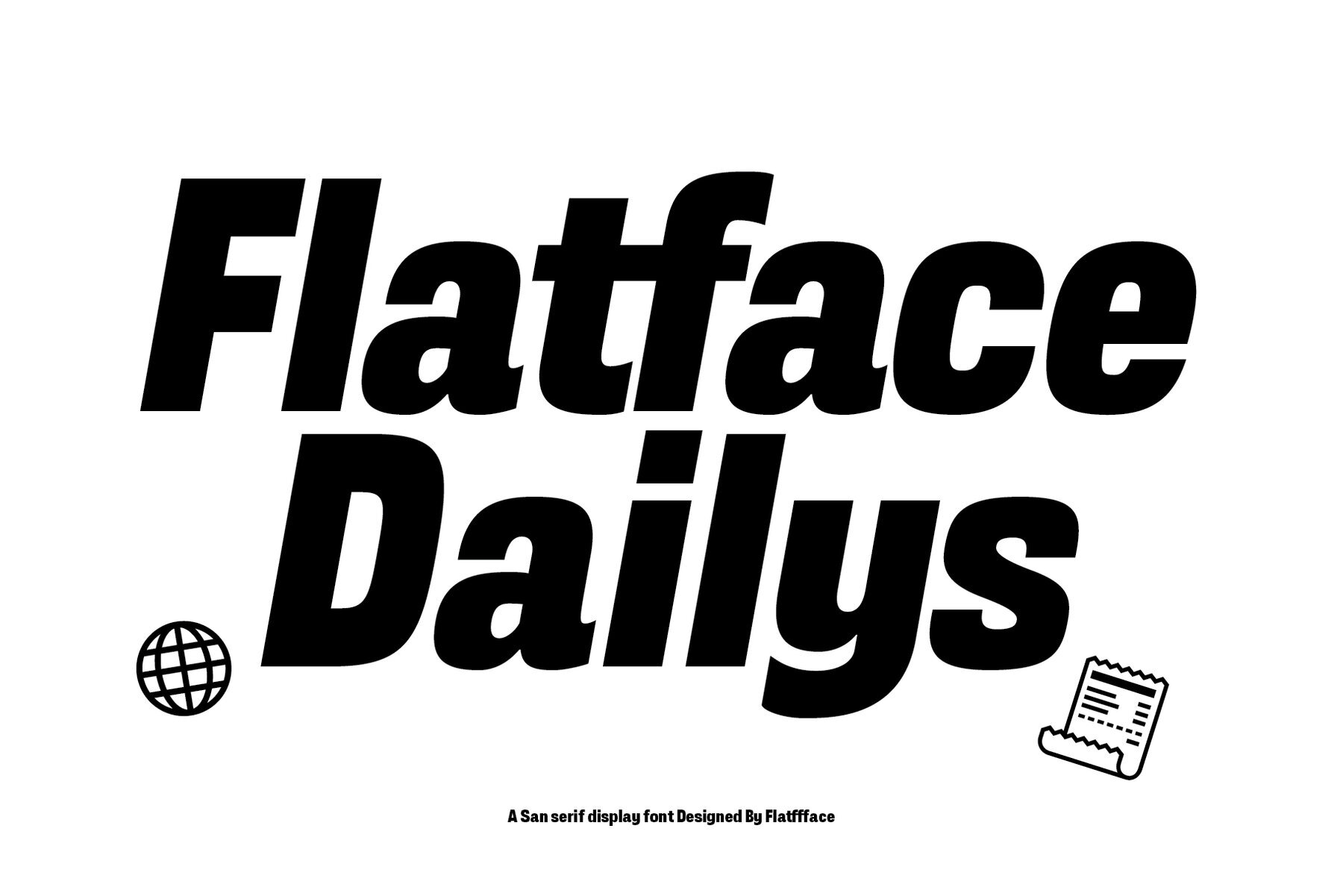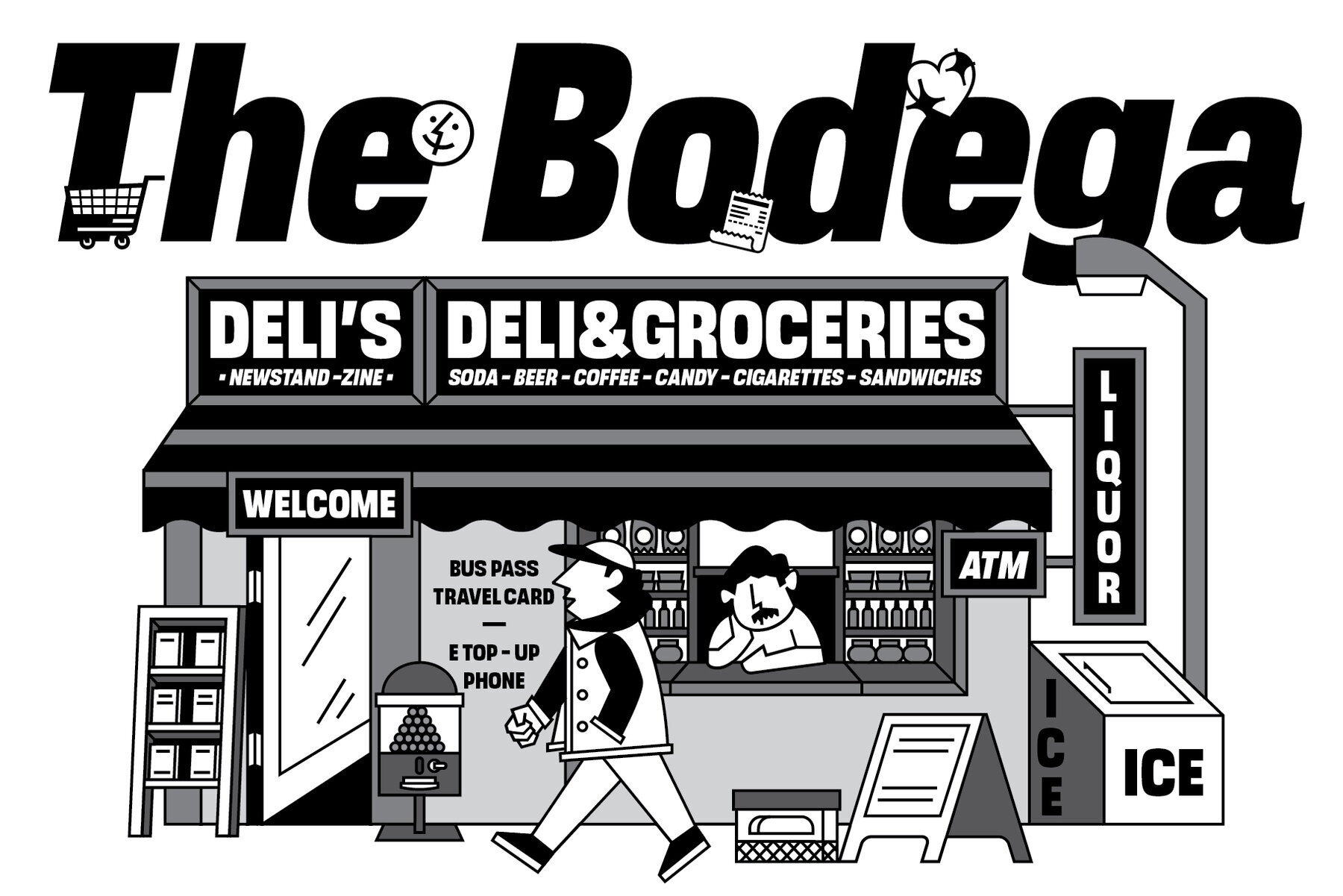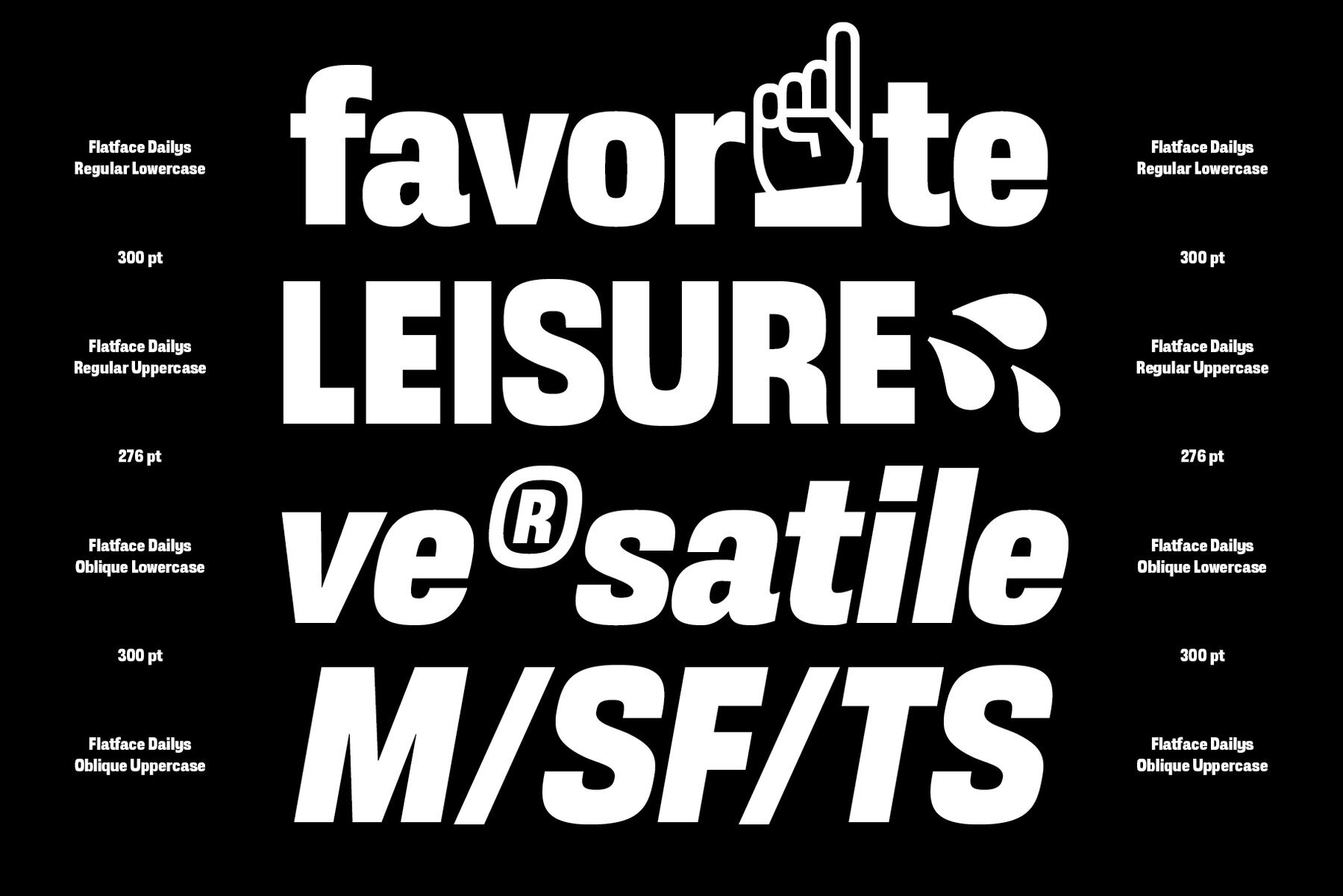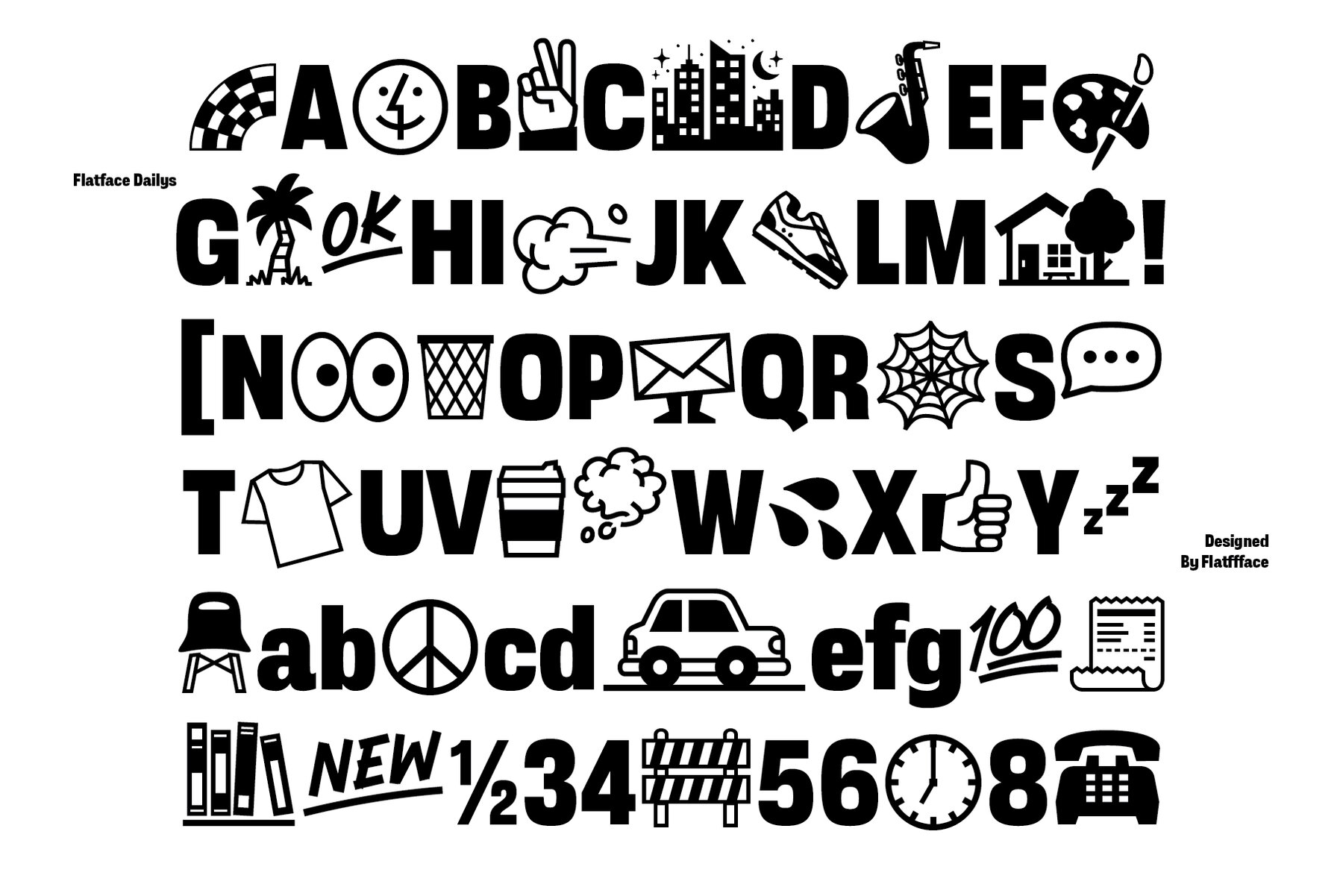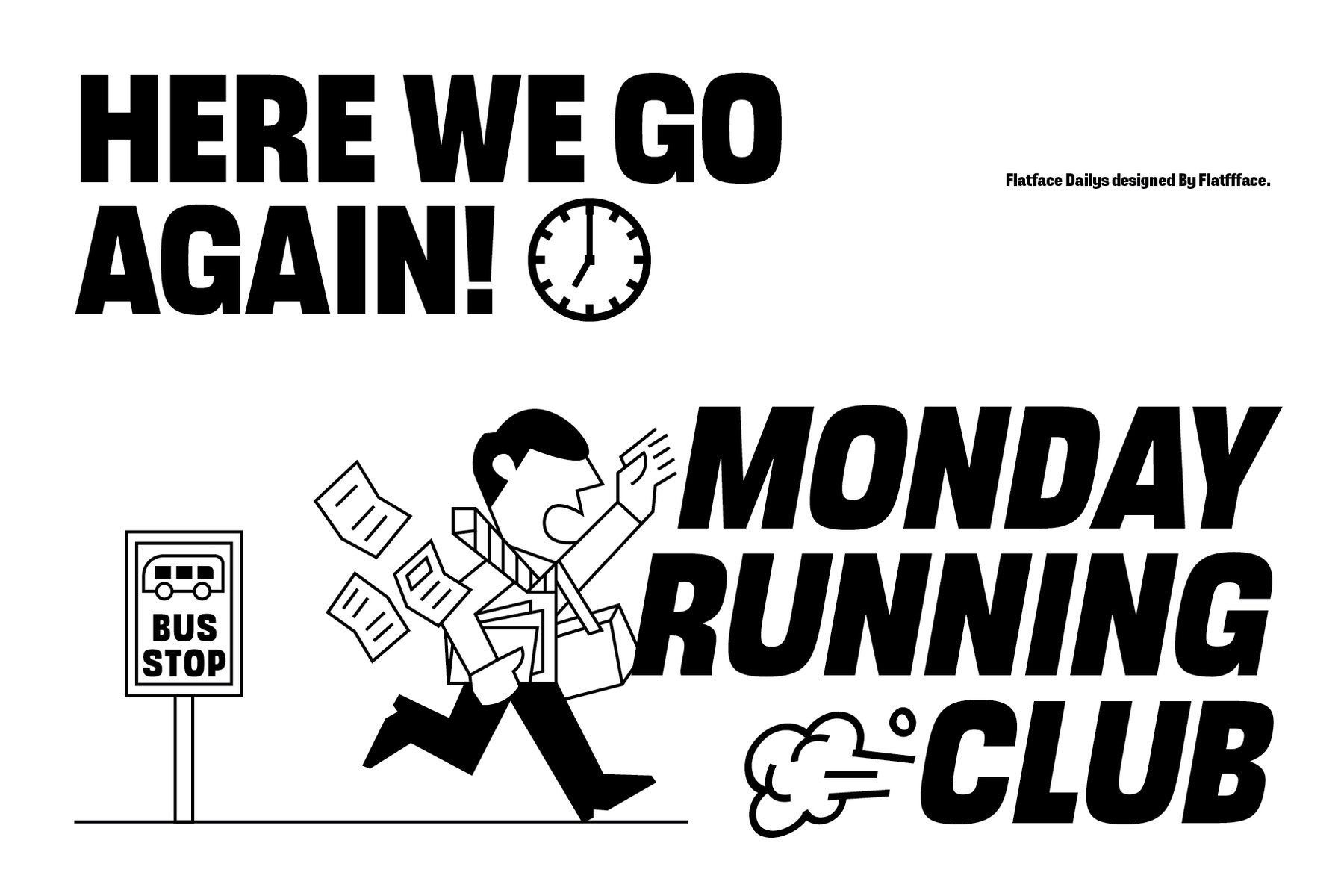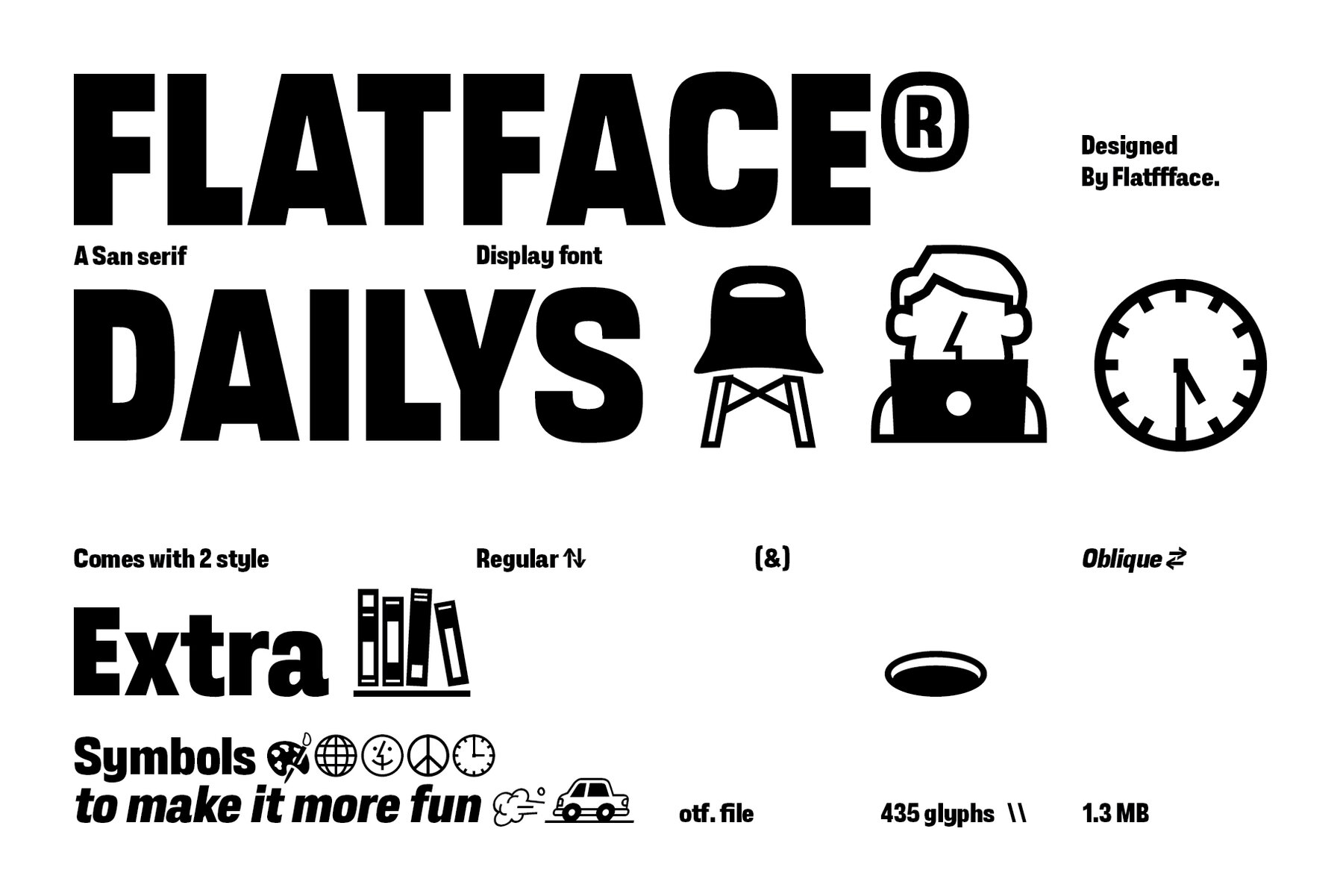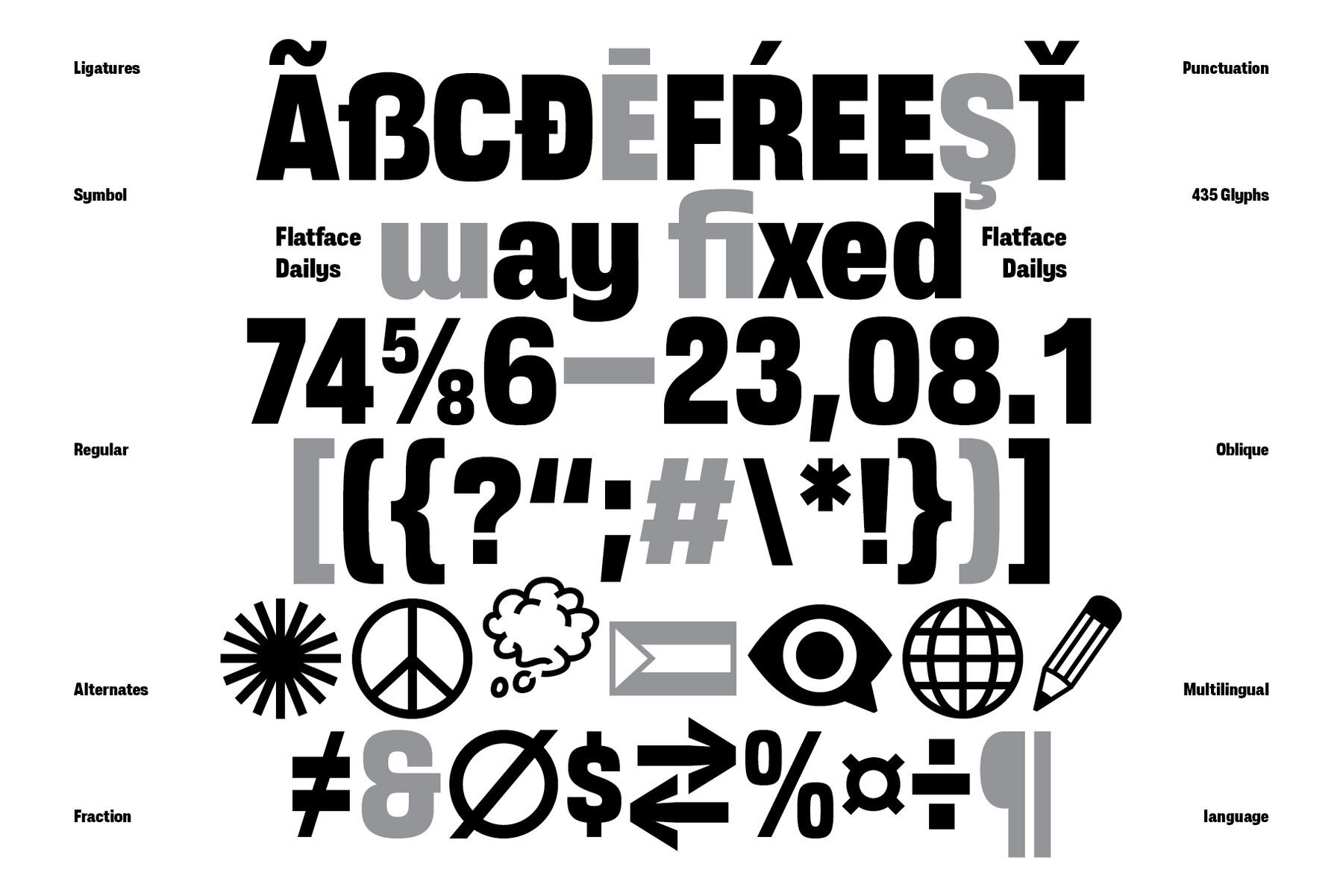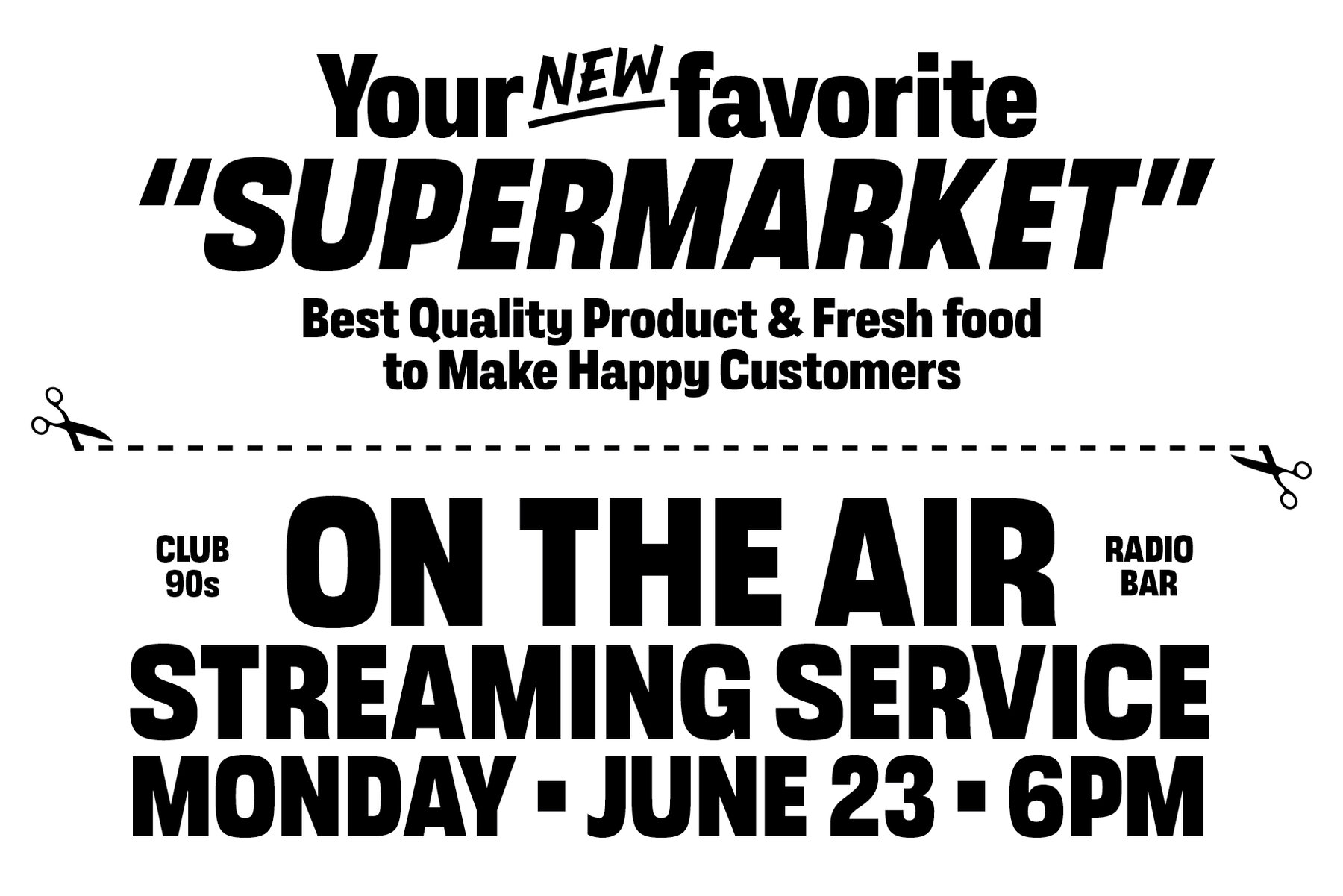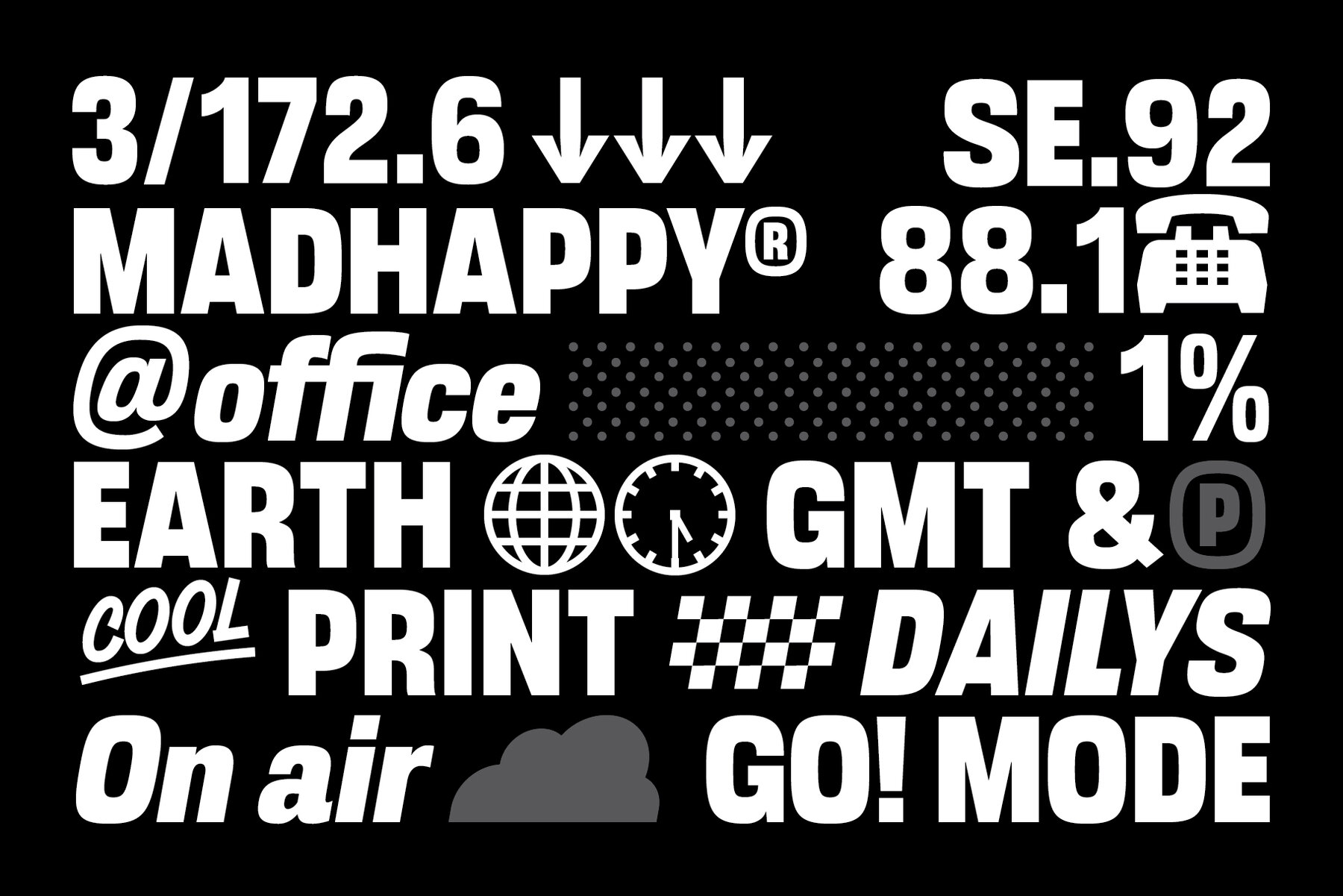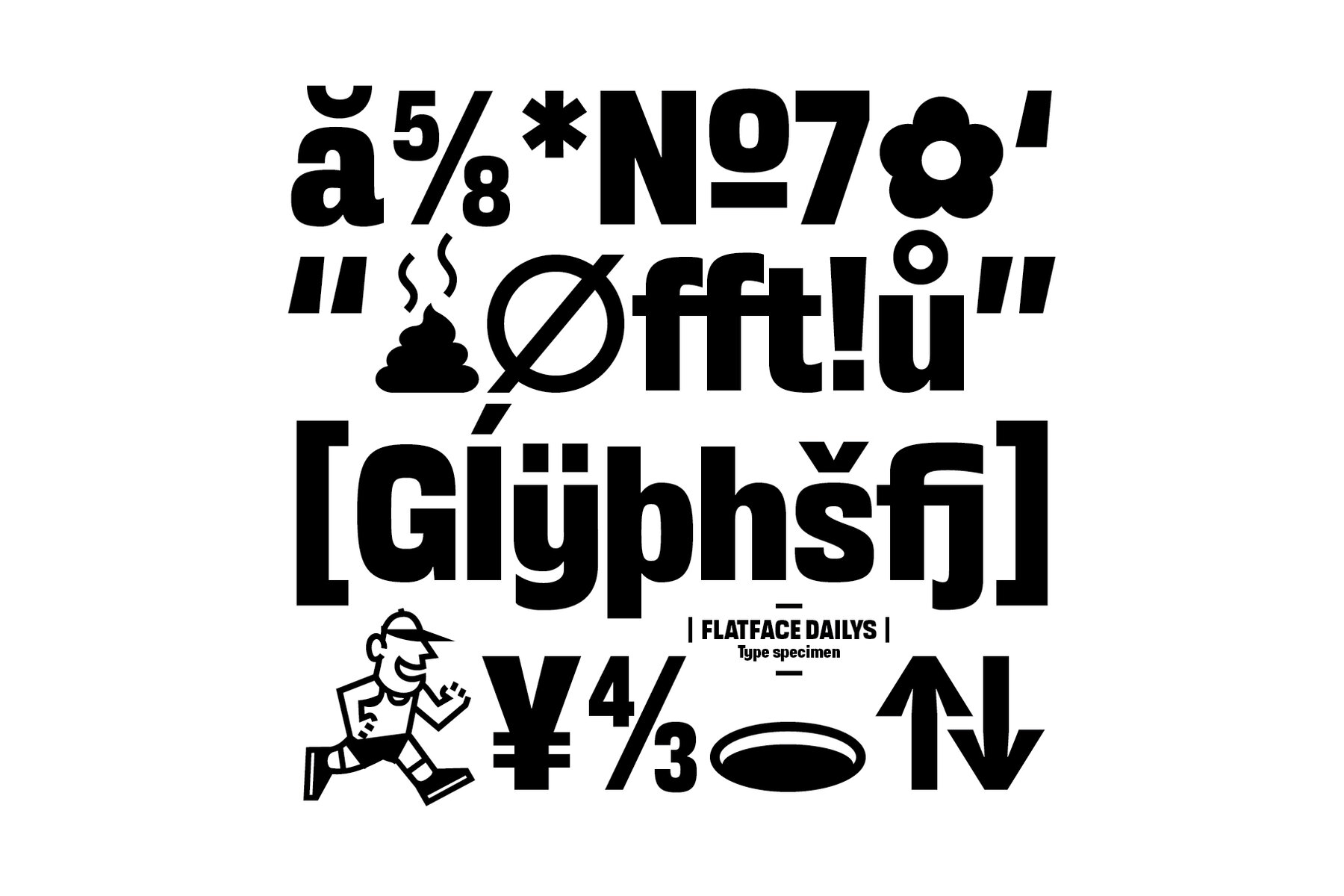
Flatface Dailys Font
Flatface Dailys is a sans serif display font inspired by the 80's and 90's deli and grocery store signage. This typeface comes in two styles: Regular and Oblique. It is packed with OpenType features such as ligatures and stylistic alternates, providing versatility for various creative projects.
In addition to its stylistic features, Flatface Dailys offers multi-lingual support for extended Latin languages, making it adaptable for international use. Perfect for adding a playful yet professional touch to your designs, this font is ideal for branding, posters, and any project requiring a bold and nostalgic aesthetic.